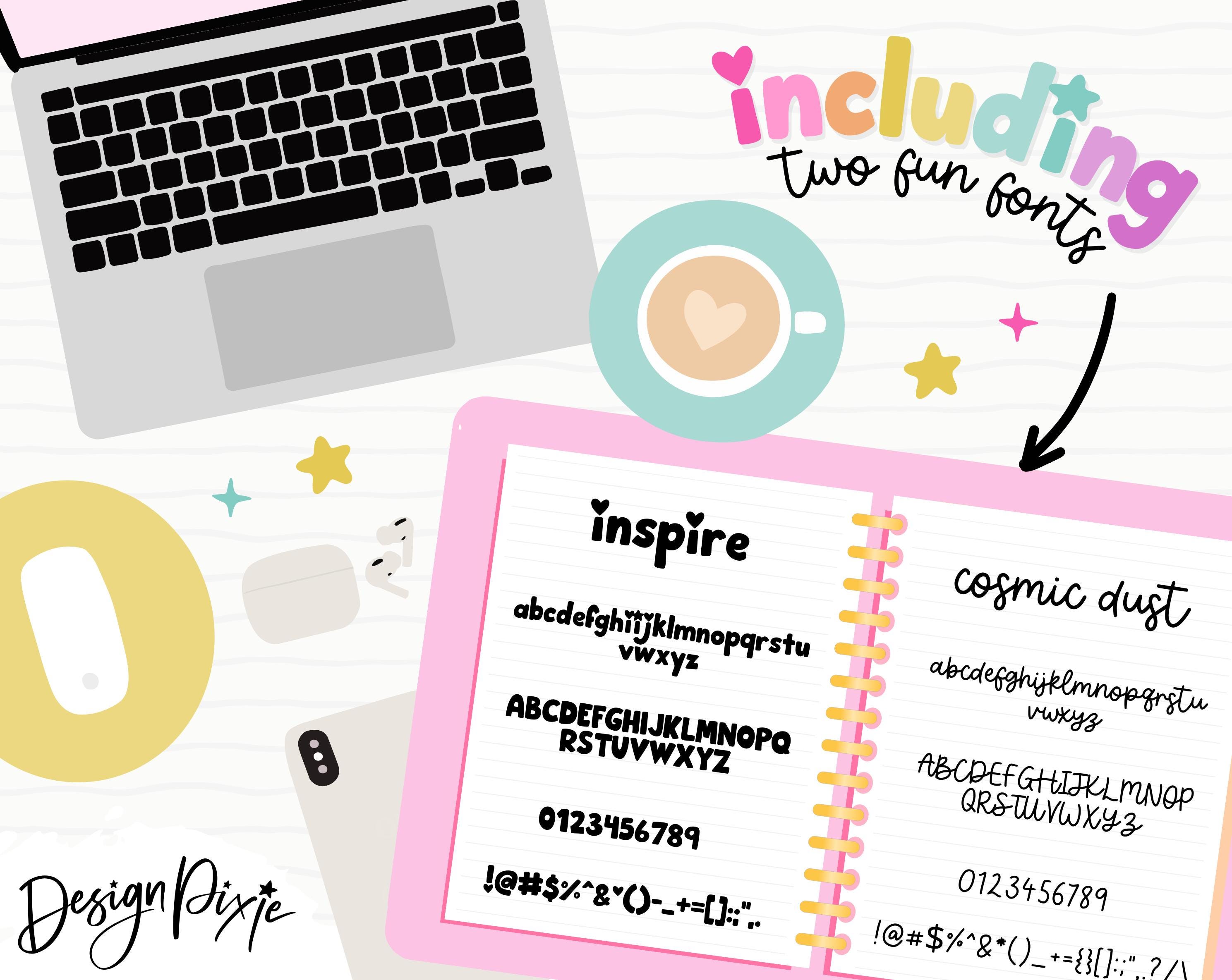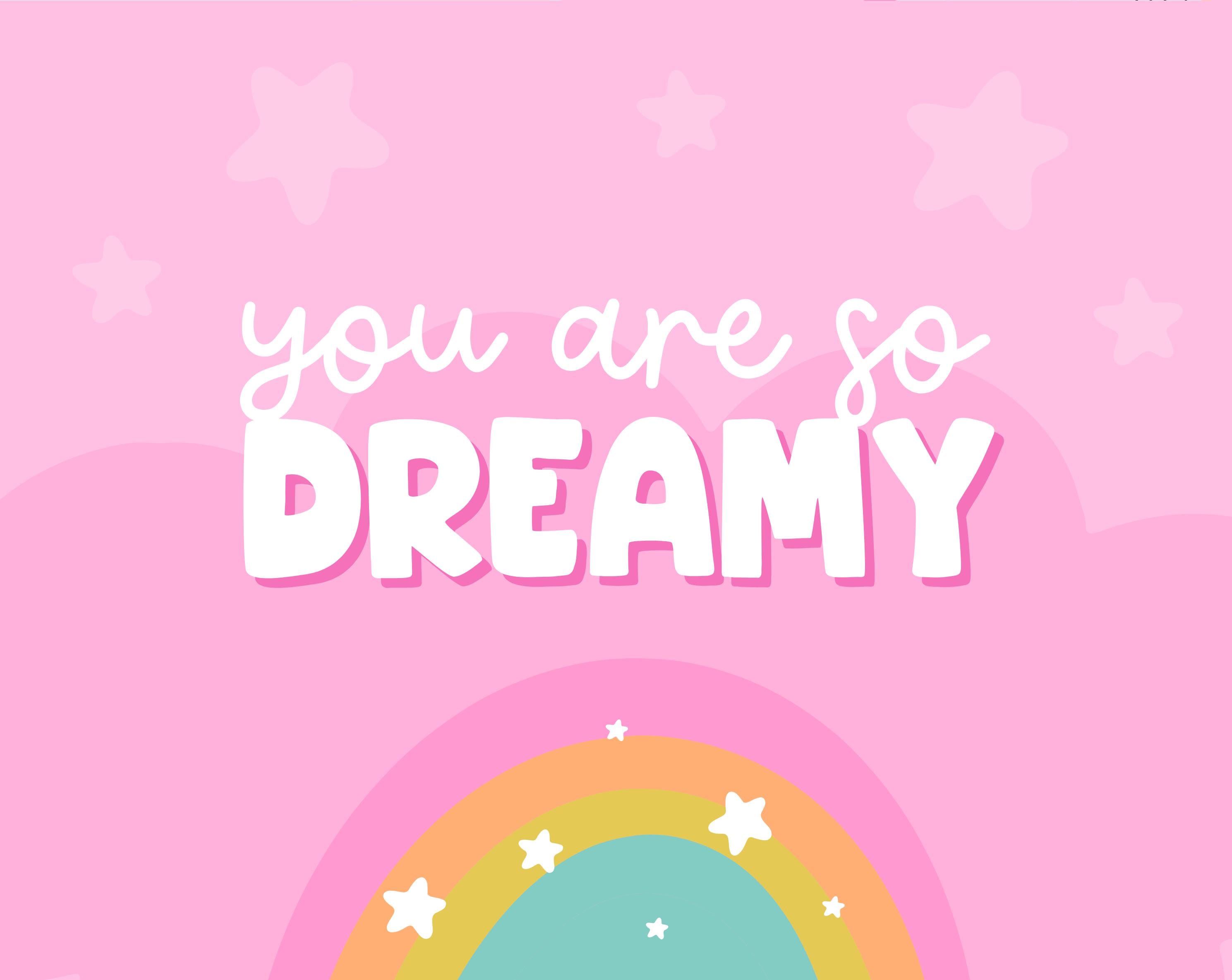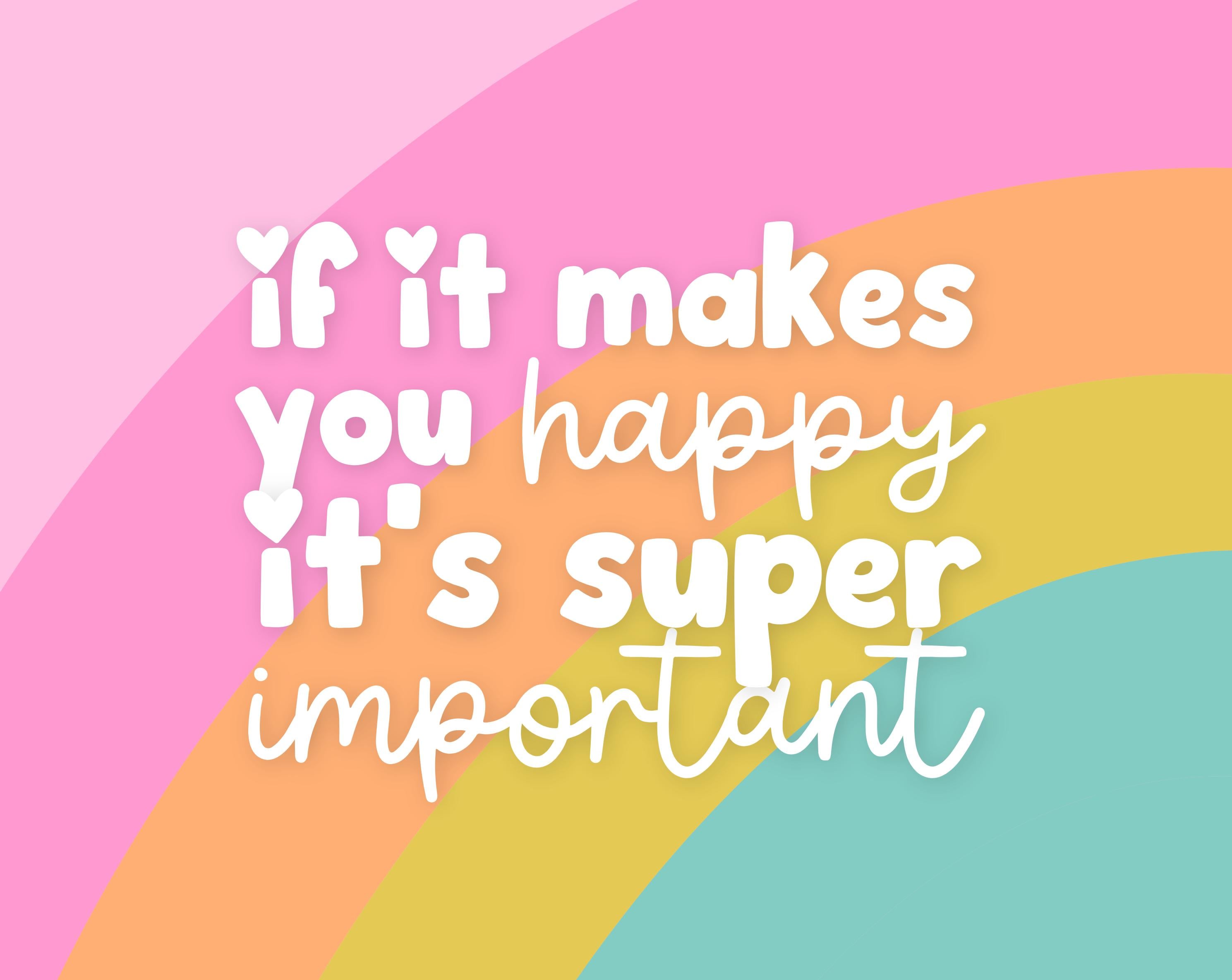
Inspire & Cosmic Dust Font Duo – Cute Handwritten Aesthetic Fonts for Logos, Cricut, Canva & Procreate
Bring instant charm to your designs with the Inspire & Cosmic Dust Font Duo—two complementary handwritten typefaces crafted to give your projects a playful, custom-made feel. Whether you’re designing a logo, whipping up social media graphics, creating invitations, or personalizing gifts, this curated pairing delivers an eye-catching balance of bold character and whimsical script.
Meet Inspire: a bold, cute handwritten font with delightful personality. Its rounded shapes and friendly strokes make headlines pop while staying approachable and fun. Personalize your look by choosing a heart or star dot for the letter “i,” adding a unique signature detail to names, tags, quotes, and product labels. Inspire excels in statement text—think branding, stickers, packaging, greeting cards, and standout captions.
Complementing Inspire is Cosmic Dust: a monoline script with a bouncy, quirky rhythm. Its smooth curves and effortless flow bring warmth and cohesion to your layouts, pairing beautifully with Inspire’s boldness. Use Cosmic Dust for subheadings, taglines, and longer quotes to create a harmonious, polished aesthetic across your designs.
Why designers love this duo:
- Balanced pairing: Bold, cute headline font + playful monoline script for effortless hierarchy.
- Personal touch: Customizable “i” dots (heart or star) and a hand-drawn vibe that feels friendly and unique.
Make your designs feel joyful, modern, and unmistakably you with the Inspire & Cosmic Dust Font Duo—two handwritten fonts that turn simple text into memorable, brand-ready visuals.